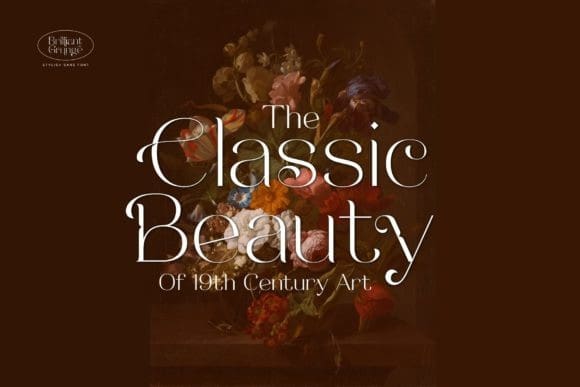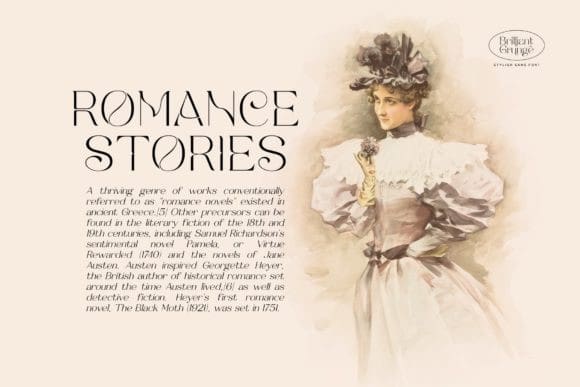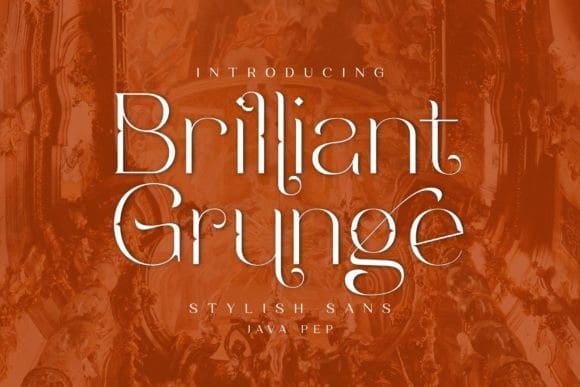
Brilliant Grunge Font
Brilliant Grunge Font is an elegant and thin lettered serif font. This font is PUA encoded which means you can access all of the glyphs and swashes with ease!
Fall in love with its incredibly versatile style and use it to create spectacular designs!